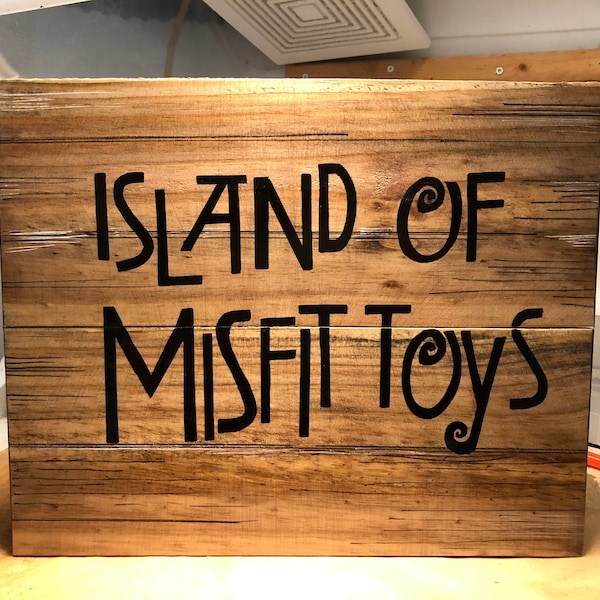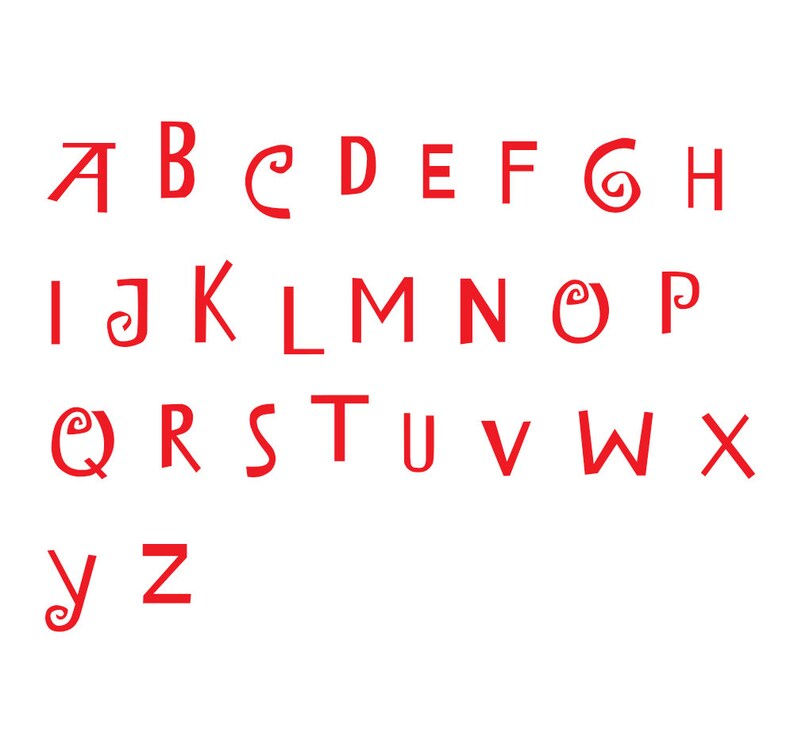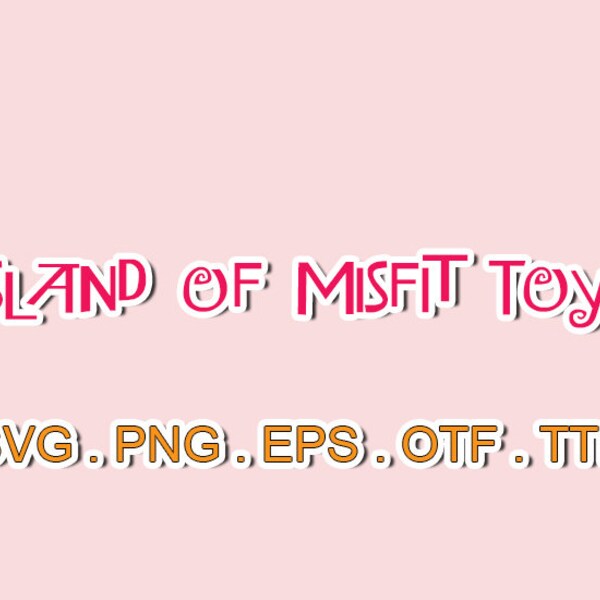
Island Of Misfit Toys Font . island of misfit toys font | designed by steve ferrera | download island of misfit toys for windows and mac | category:. island of misfit toys is based on rudolph the red nosed reindeer title. The island of misfit toys font has been downloaded 11,050 times. Recently used in the abc family 2008 tv. thousands of designers (famous or not) use the image font detection system to find a font or similar free fonts. island of misfit toys is a fancy, cartoon font designed by steve ferrera. download free island of misfit toys font, view its. The font is licensed as free for. Moreover, you can embed it to your website with. download and install the island of misfit toys font by steve ferrera. island of misfit toys font download is available free from fontget. Island of misfit toys is a free font for personal use.
Island of misfit toys is a free font for personal use. island of misfit toys is based on rudolph the red nosed reindeer title. download free island of misfit toys font, view its. Recently used in the abc family 2008 tv. Moreover, you can embed it to your website with. The island of misfit toys font has been downloaded 11,050 times. island of misfit toys font download is available free from fontget. thousands of designers (famous or not) use the image font detection system to find a font or similar free fonts. island of misfit toys font | designed by steve ferrera | download island of misfit toys for windows and mac | category:. The font is licensed as free for.
Island Of Misfit Toys Font The font is licensed as free for. Recently used in the abc family 2008 tv. island of misfit toys is based on rudolph the red nosed reindeer title. island of misfit toys is a fancy, cartoon font designed by steve ferrera. The font is licensed as free for. Moreover, you can embed it to your website with. The island of misfit toys font has been downloaded 11,050 times. island of misfit toys font download is available free from fontget. download free island of misfit toys font, view its. island of misfit toys font | designed by steve ferrera | download island of misfit toys for windows and mac | category:. download and install the island of misfit toys font by steve ferrera. thousands of designers (famous or not) use the image font detection system to find a font or similar free fonts. Island of misfit toys is a free font for personal use.